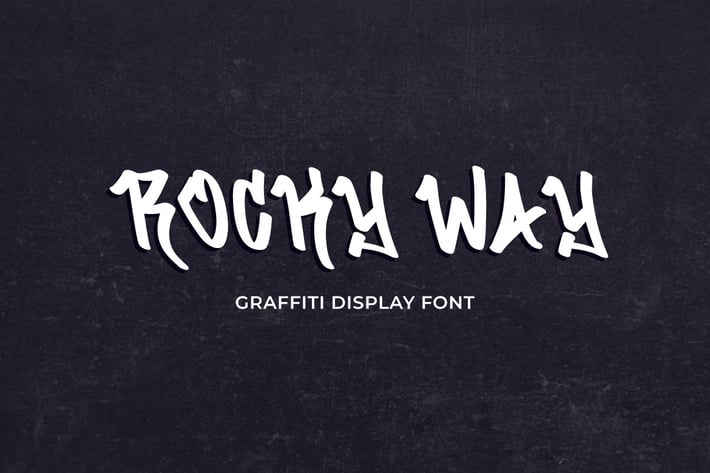
Rocky Way - Graffiti Display Font
Hello! Rocky Way is a modern graffiti font.
Rocky Way can be used in any works such as flyer, book title, advertisement, social media content, logo and many more.